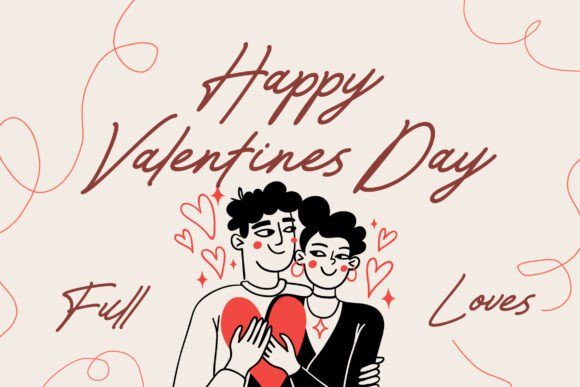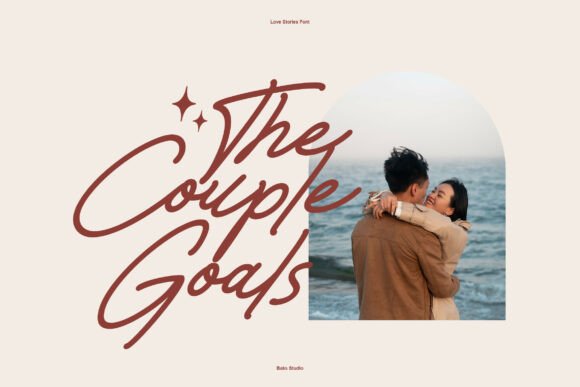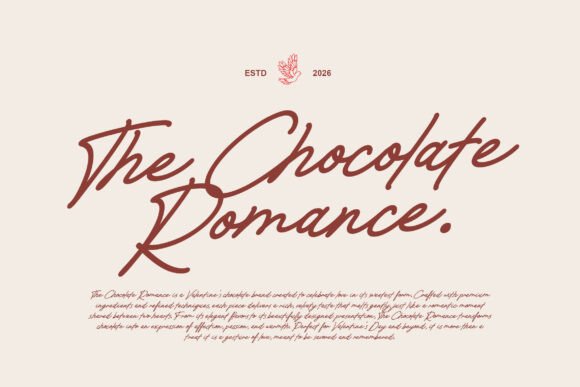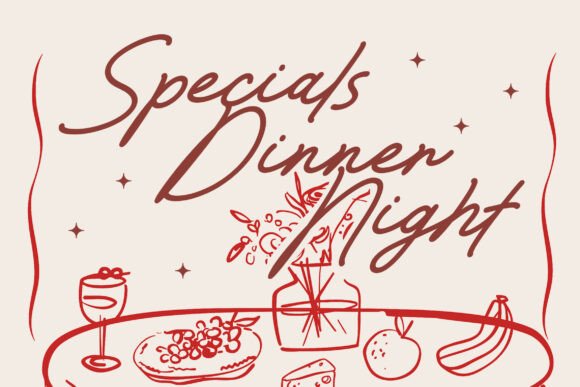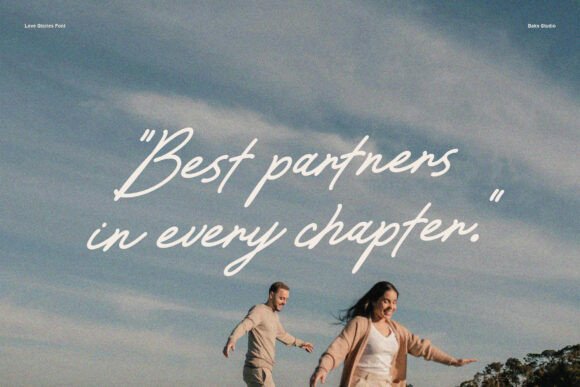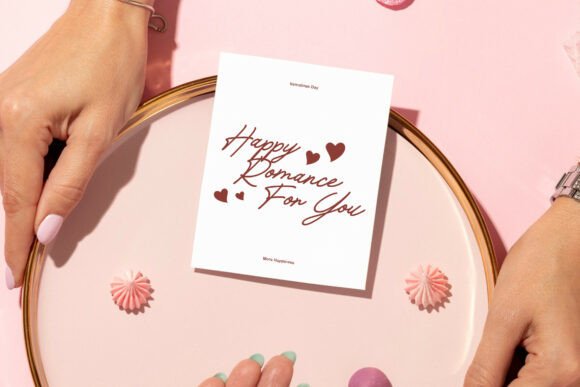
Introduction to Love Stories Font Font
Fonts play a crucial role in design, and the Love Stories Font font is a typeface that brings both character and versatility to any project. Whether you’re working on a branding project, a website, or a print design, the Love Stories Font font offers a unique style that can elevate your work.
Tell your story with the effortless charm of Love Stories.
This lovely monoline font was crafted to mimic the flow of a natural, romantic hand Unlike rigid scripts, Love Stories possesses a whimsical bounce that feels personal, intimate, and straight from the heart.
Key Features of Love Stories Font Font
Why Choose Love Stories Font Font?
The Love Stories Font font is more than just a typeface – it’s a design tool that helps you communicate your message with style and clarity. Its unique character set and versatile design make it suitable for a wide range of applications, from elegant invitations to bold headlines.
With its carefully crafted letterforms and balanced proportions, the Love Stories Font font ensures readability and visual appeal across all mediums.
What makes Love Stories Font font special?
The Love Stories Font font stands out with its unique design, exceptional readability, and versatility across various design applications.